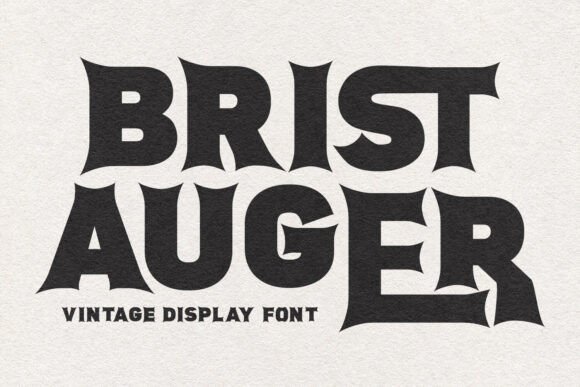
The Brist Auger Vintage Display Font: A Timeless Classic for Your Design Projects
I’ll never forget the struggle I faced while working on a vintage-themed poster project. I had spent hours brainstorming ideas, sketching out concepts, and refining my design, but something was missing. The font I had chosen just didn’t have that authentic, retro feel I was going for. That’s when I stumbled upon the Brist Auger Vintage Display Font, and it completely transformed my project. In this article, I’ll share my experience with this amazing font, its features, and how you can make the most of it in your own design projects.
First Impressions: A Bold and Stylish Font
The Brist Auger Vintage Display Font is a stylish and bold font that exudes a retro vibe. Its thick, sharp letters are perfect for creating eye-catching logos, posters, and headlines. The font’s unique look adds a classic touch to any project, making it a great choice for designers, crafters, and creative hobbyists.
- ✅ Unique and authentic vintage look
- ✅ Thick, sharp letters for maximum impact
- ✅ Perfect for logos, posters, and headlines
- ✅ Easy to read, even in large sizes
- ⚠️ Limited use for body text due to its bold nature
- ⚠️ May not be suitable for very small font sizes
The Story Behind Brist Auger
The Brist Auger font was inspired by vintage designs from the early 20th century. Its creator, a talented type designer, aimed to capture the essence of classic fonts while adding a modern twist. The result is a unique and stylish font that’s perfect for designers looking to add a touch of nostalgia to their projects.
Q: What is the Brist Auger font best used for?
A: The Brist Auger font is best used for logos, posters, headlines, and other display text. Its bold, vintage look makes it perfect for grabbing attention and adding a classic touch to your designs.
Q: Can I use Brist Auger for body text?
A: While Brist Auger can be used for body text, it’s not the most suitable font for this purpose due to its bold nature. It’s better suited for display text, such as headlines and titles.